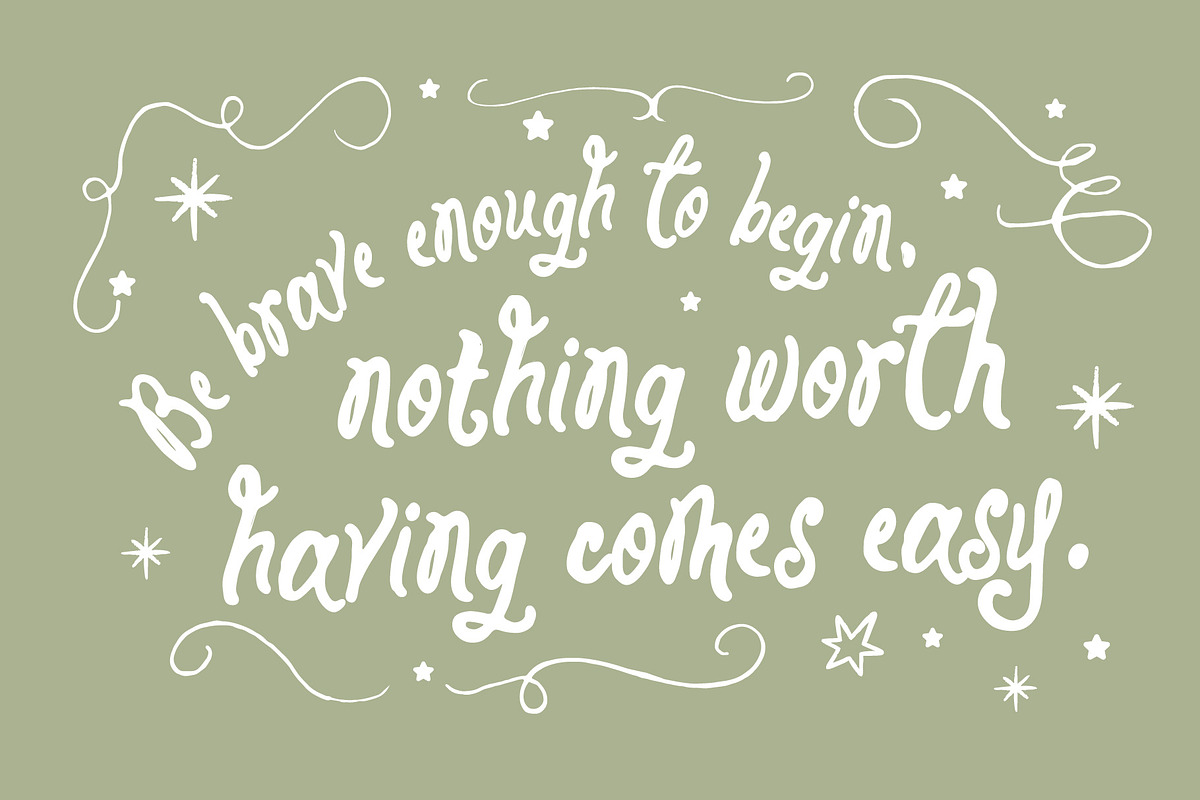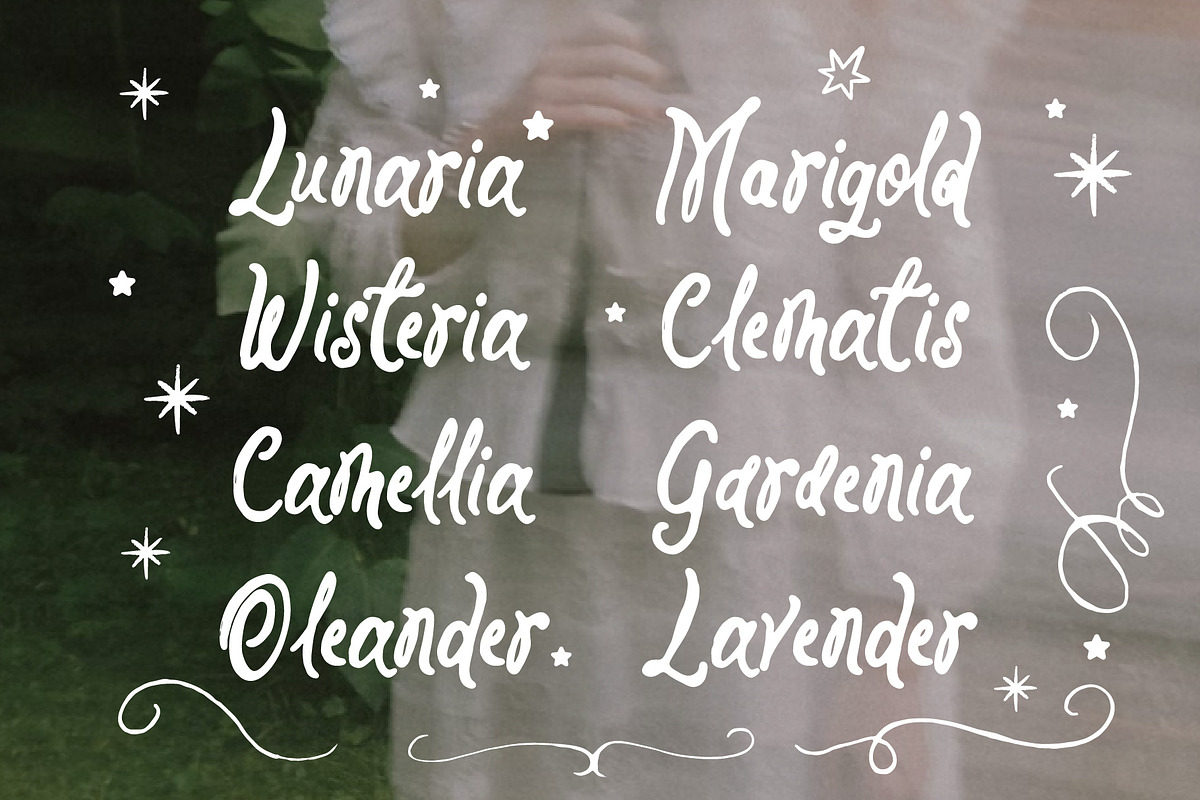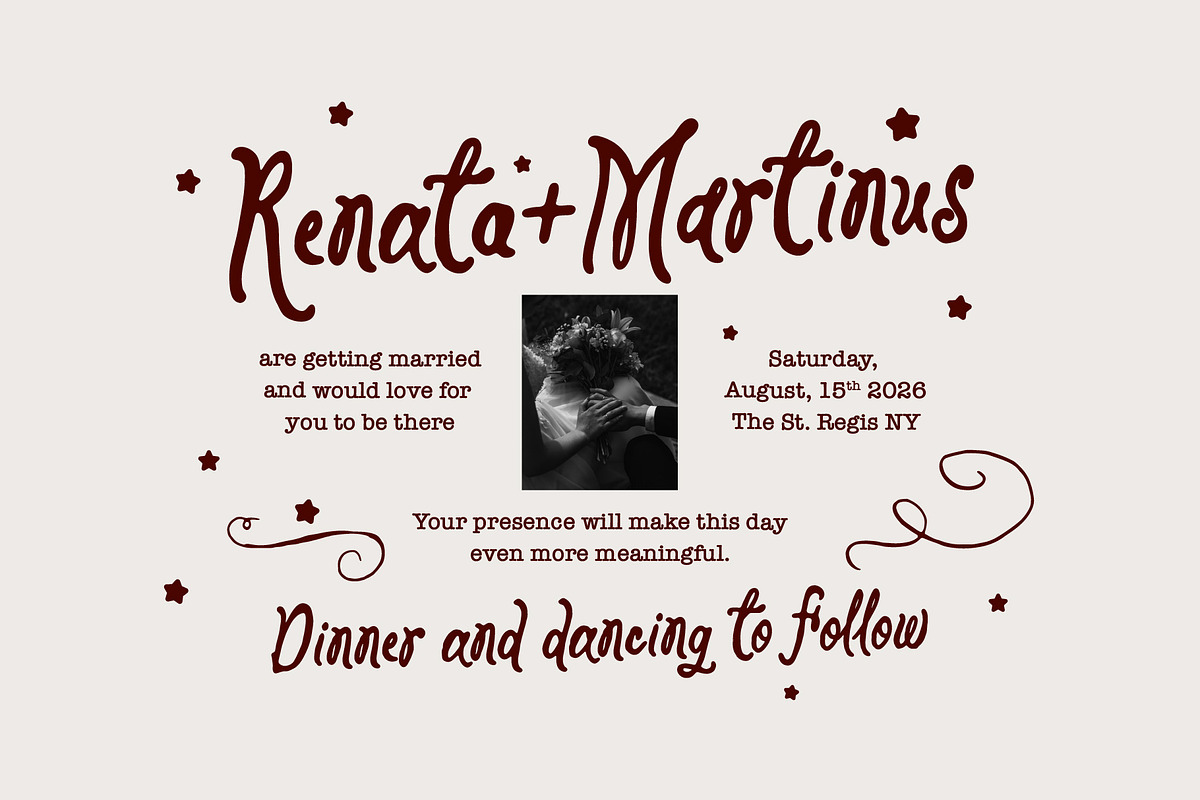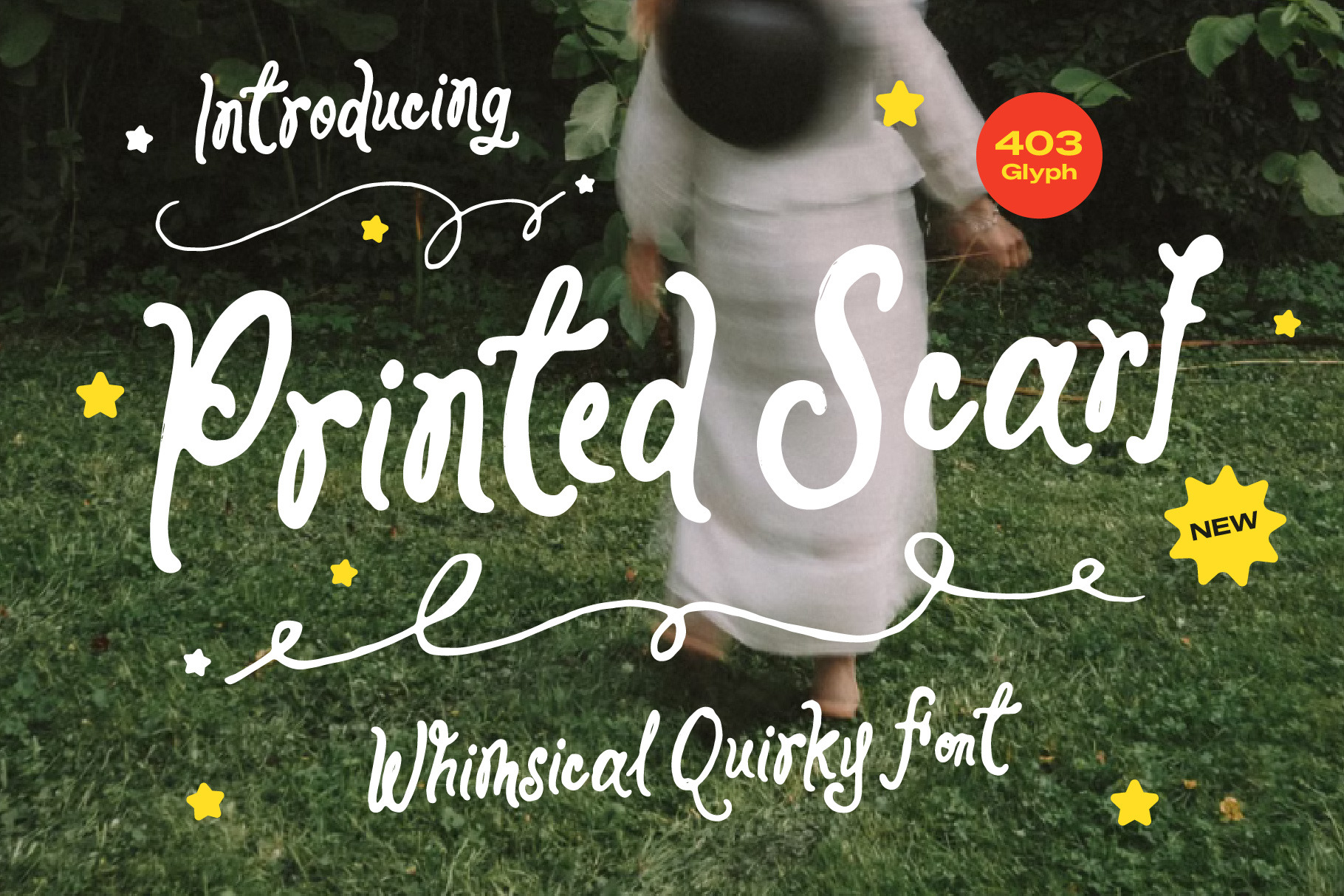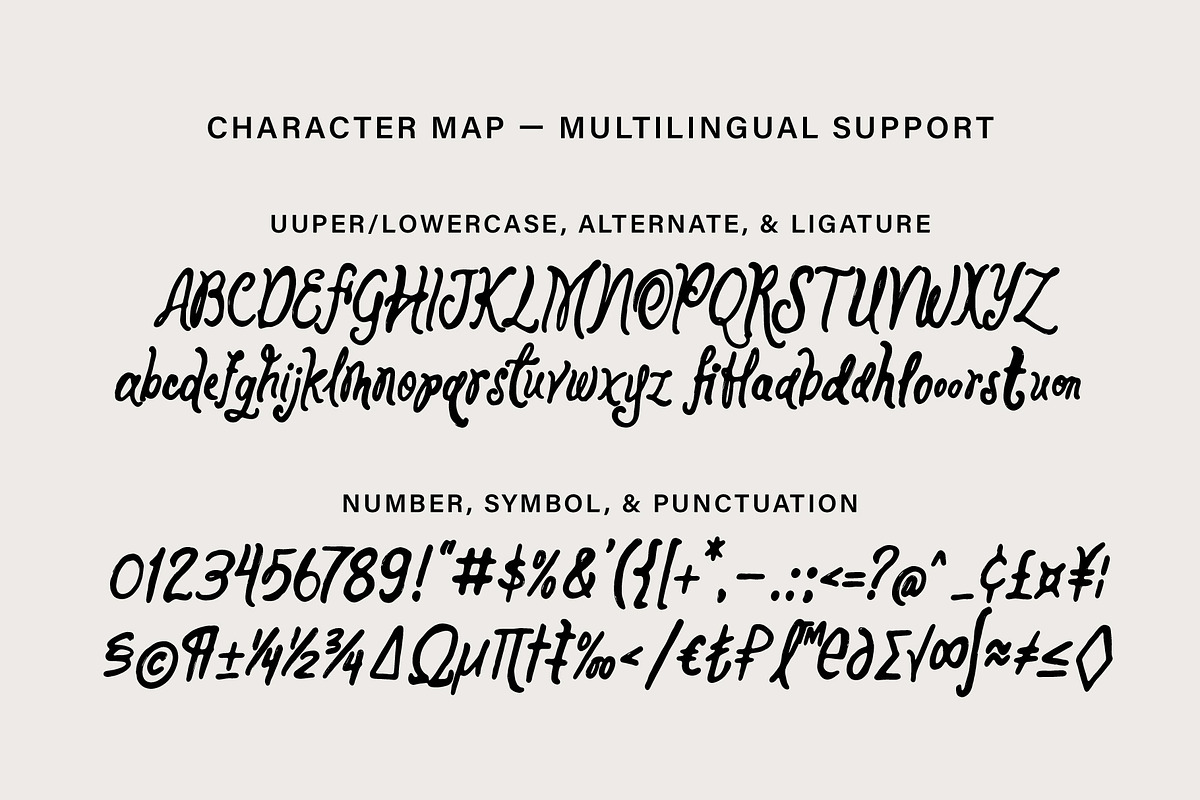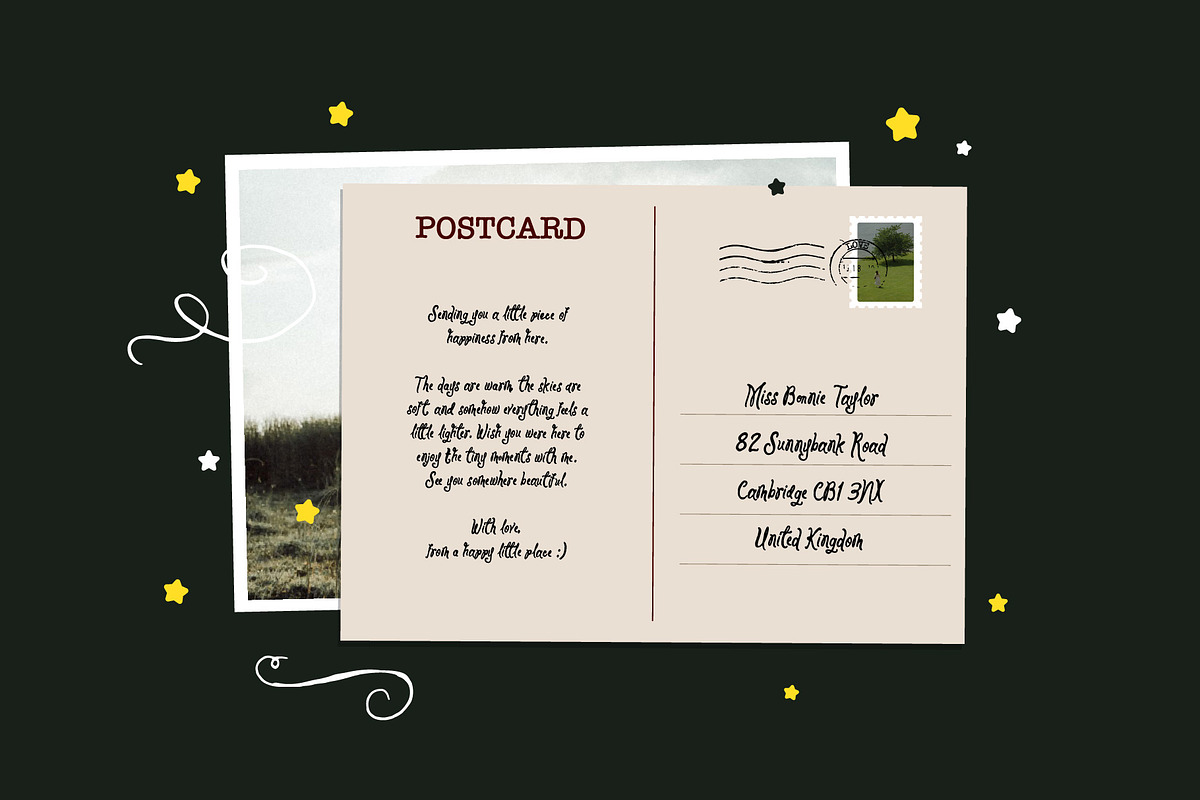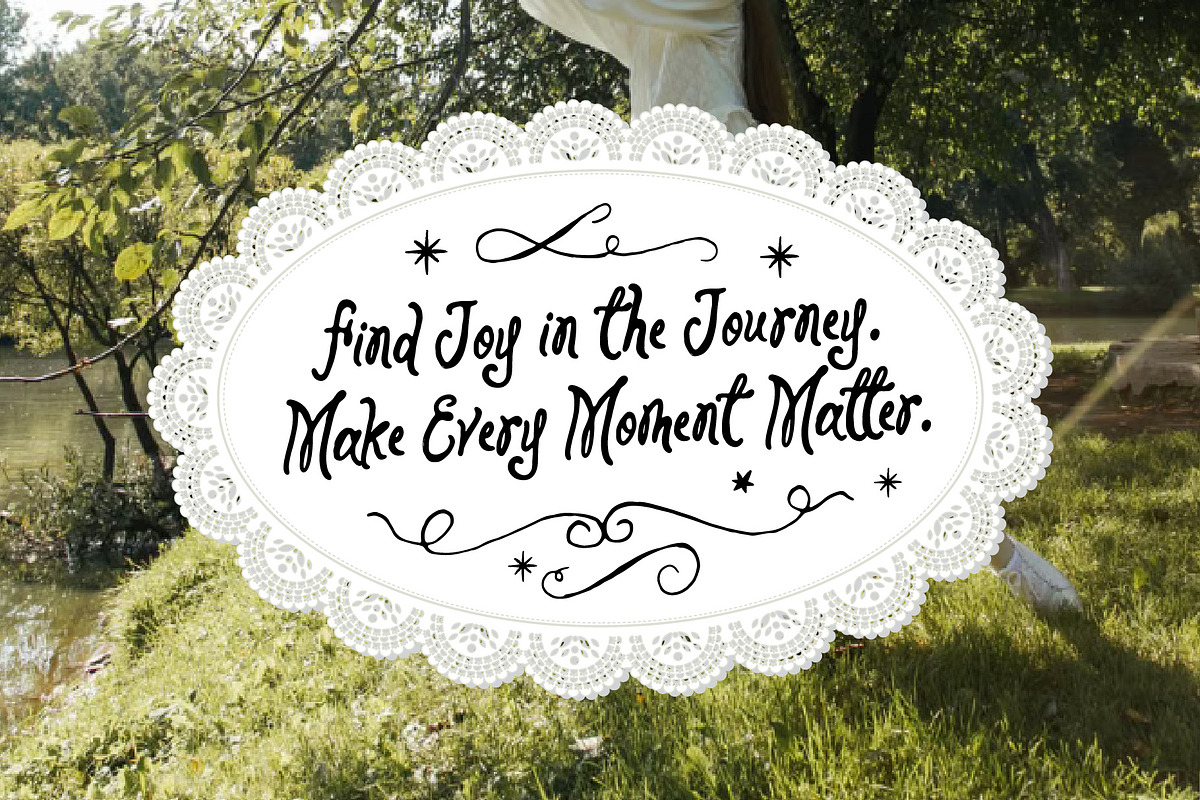
Printed Scarf Whimsical Quirky Font
Printed Scarf is a charmingly bouncy and irregular handwritten script designed to bring a playful yet deeply romantic personality to your creative canvas. Featuring gracefully uneven letterforms, curling swashes, and a delicate handcrafted rhythm, this whimsical font captures the authentic, imperfect beauty of a personal diary entry or an antique love letter. It feels organic, expressive, and effortlessly sweet, ensuring every word you type carries a warm, human touch.
This versatile font is perfect for dreamy wedding invitations, vintage-inspired postcards, botanical packaging, boutique branding, greeting cards, and cozy editorial layouts. Whether you are crafting a heartfelt quote for social media, a rustic cafe menu, or a romantic save-the-date, Printed Scarf adds a magical, storybook aesthetic to your designs that instantly captivates the eye.